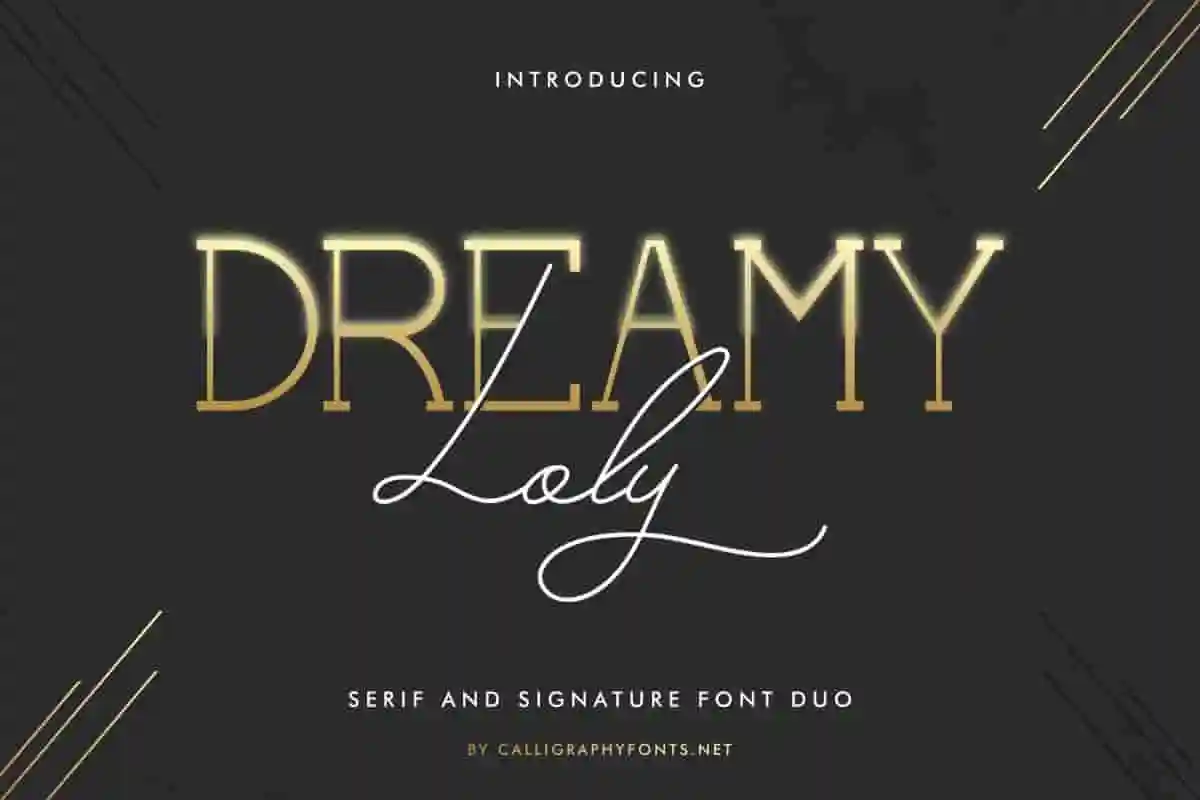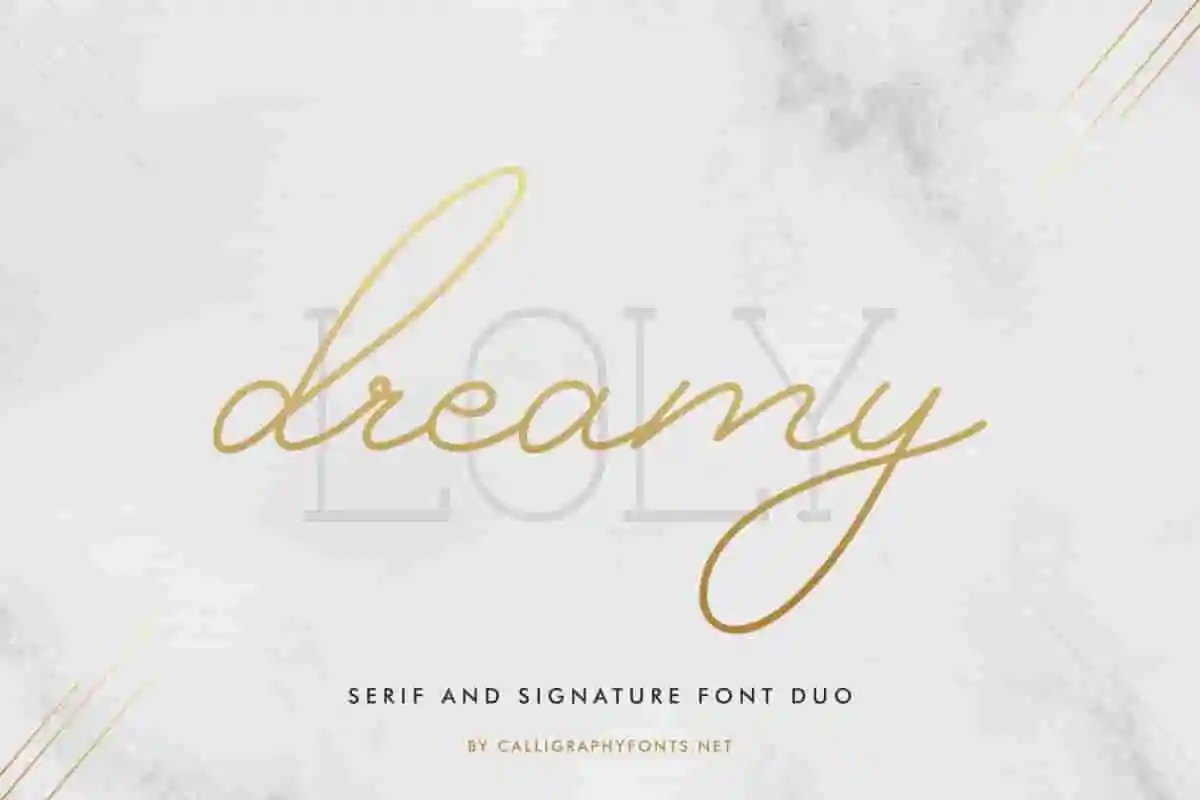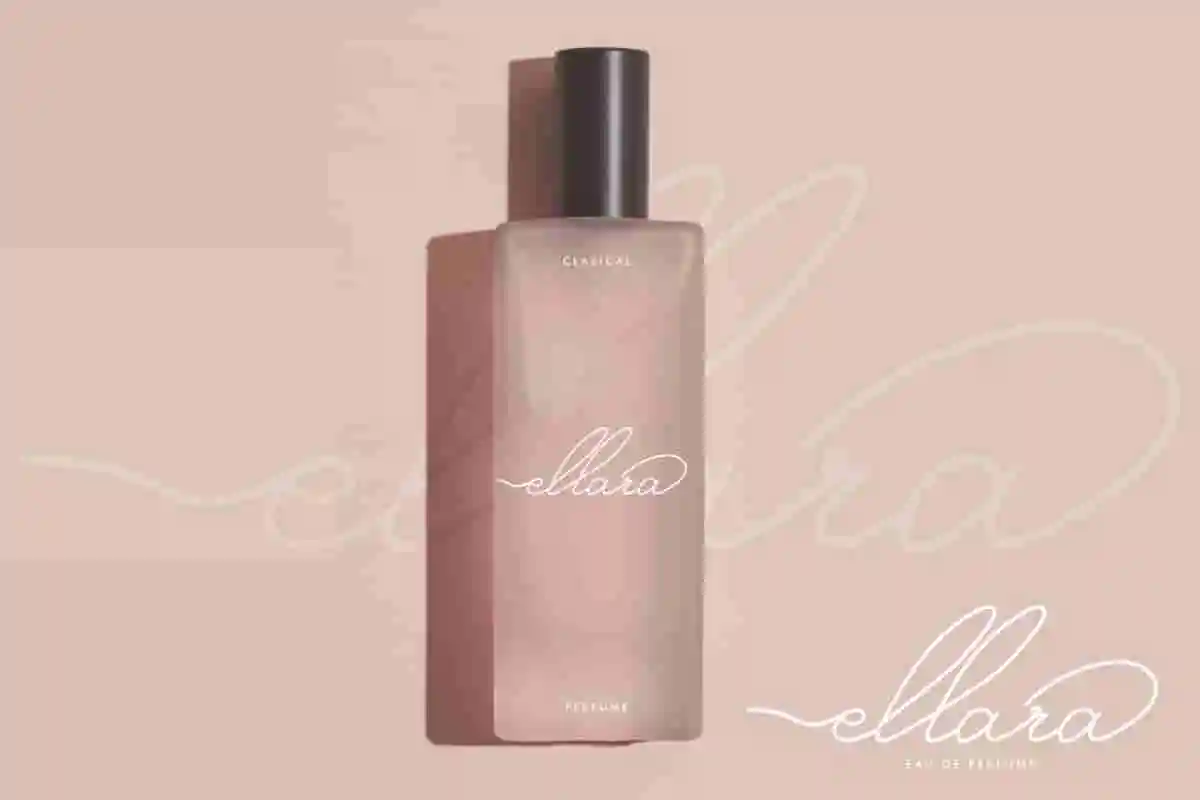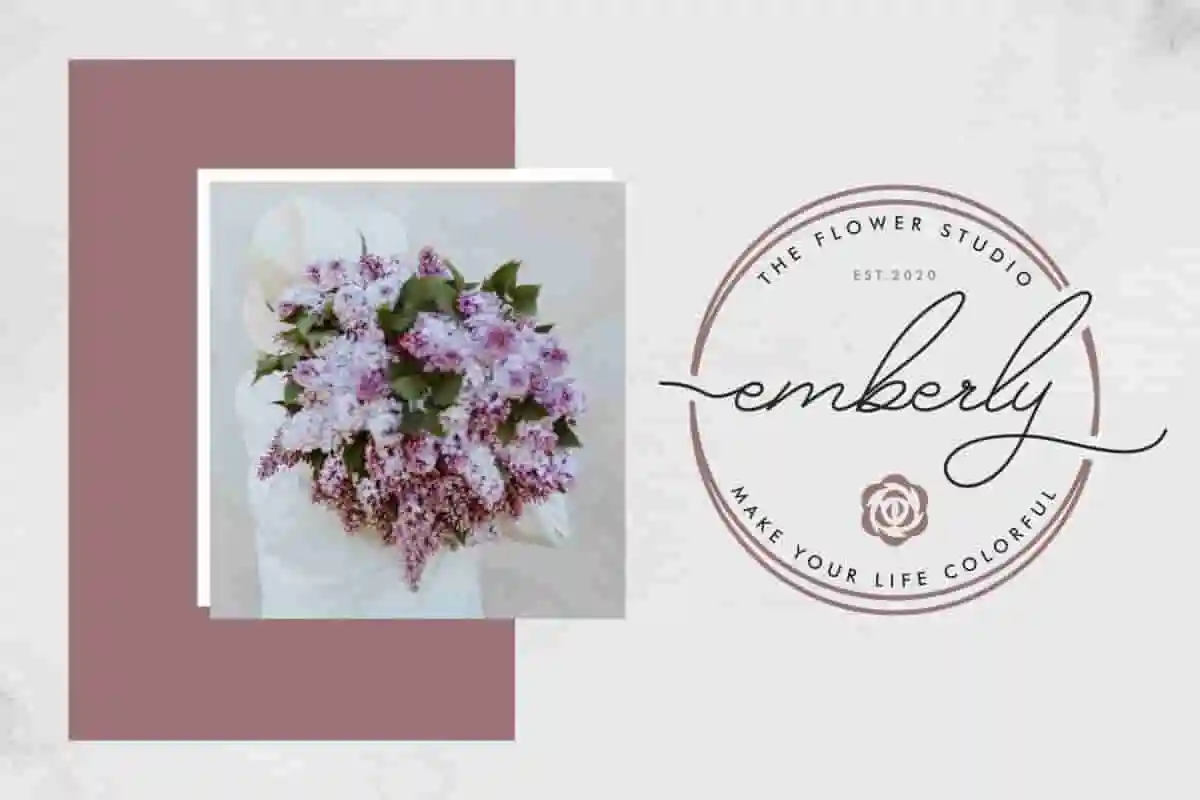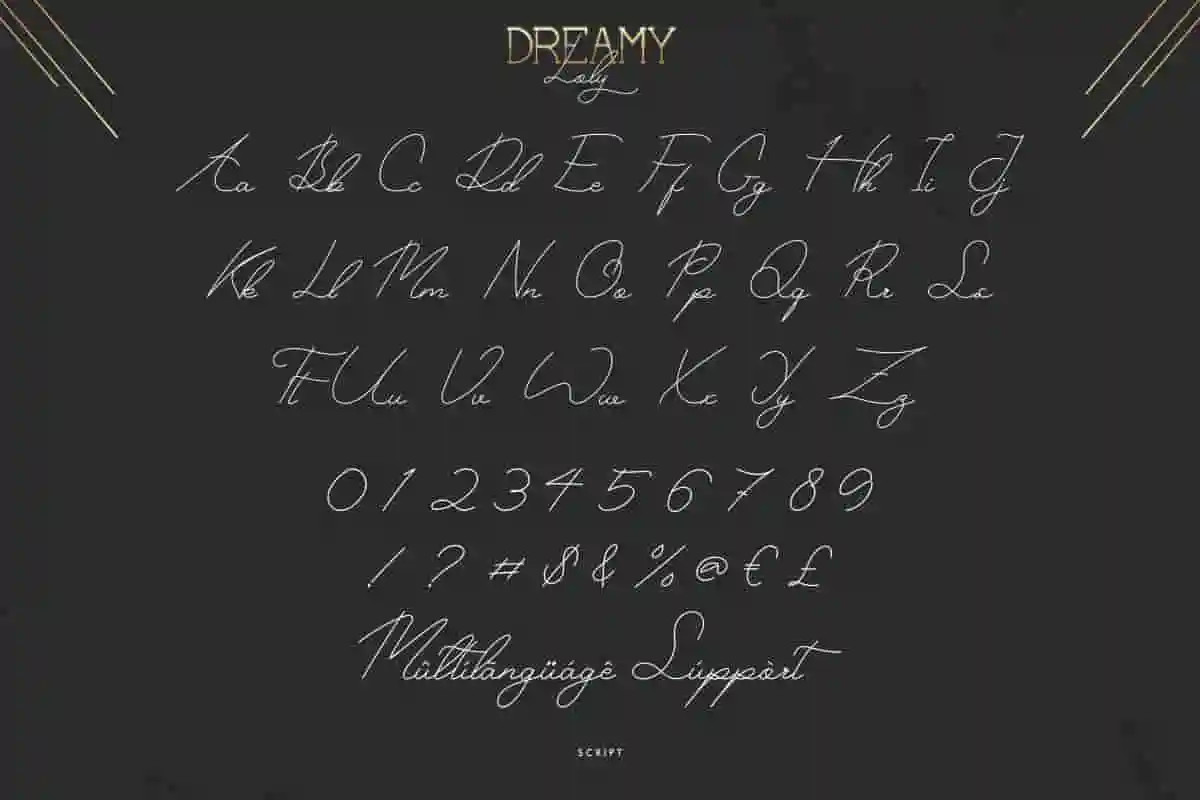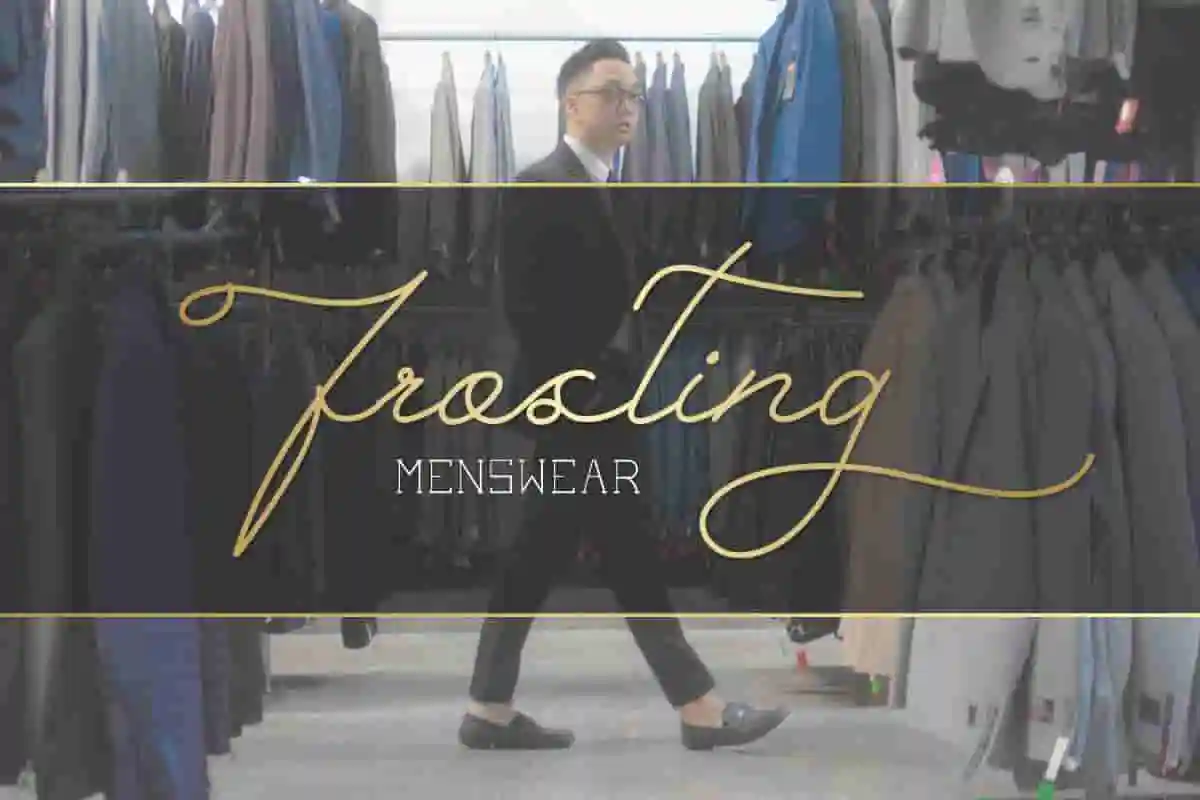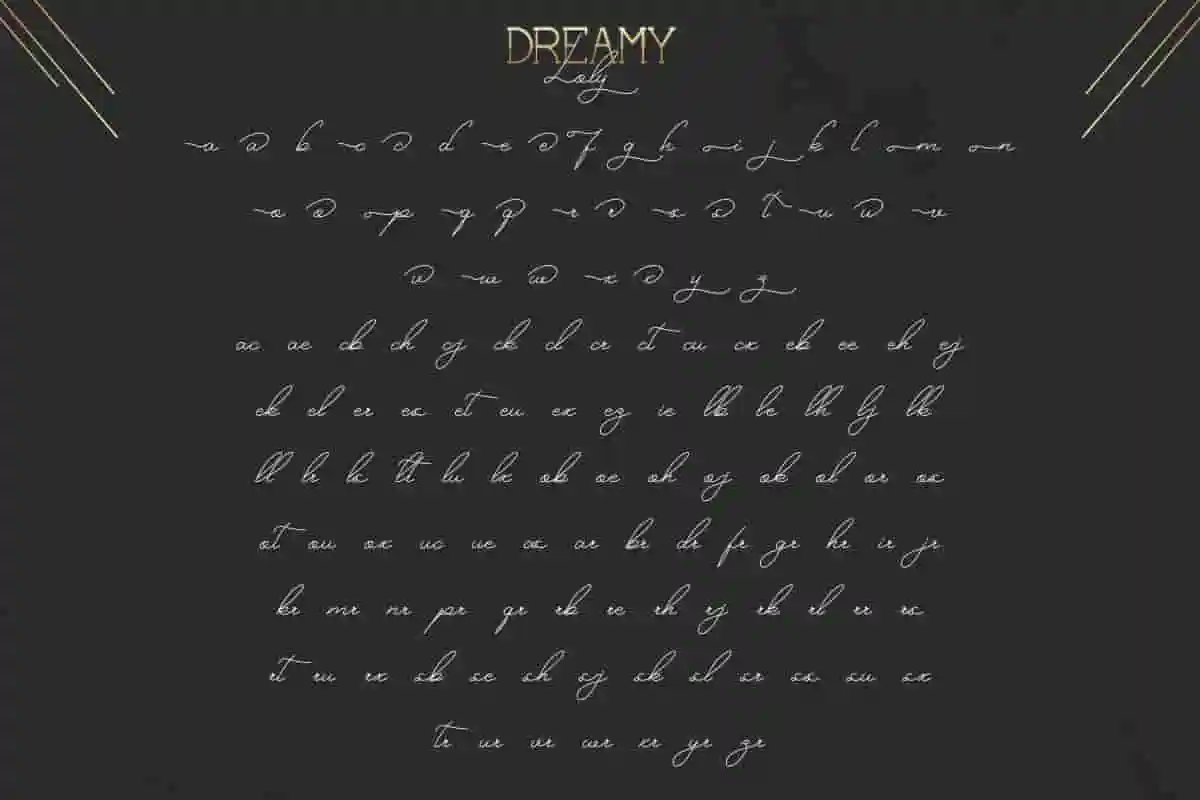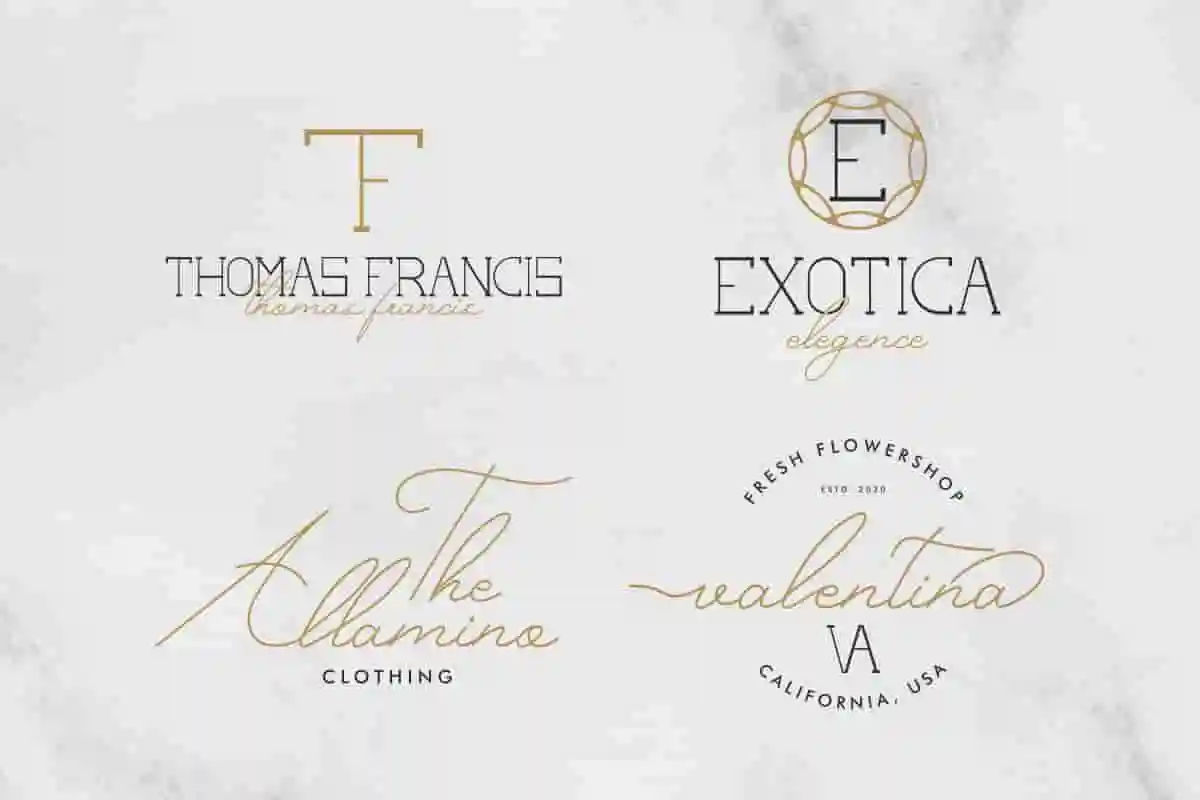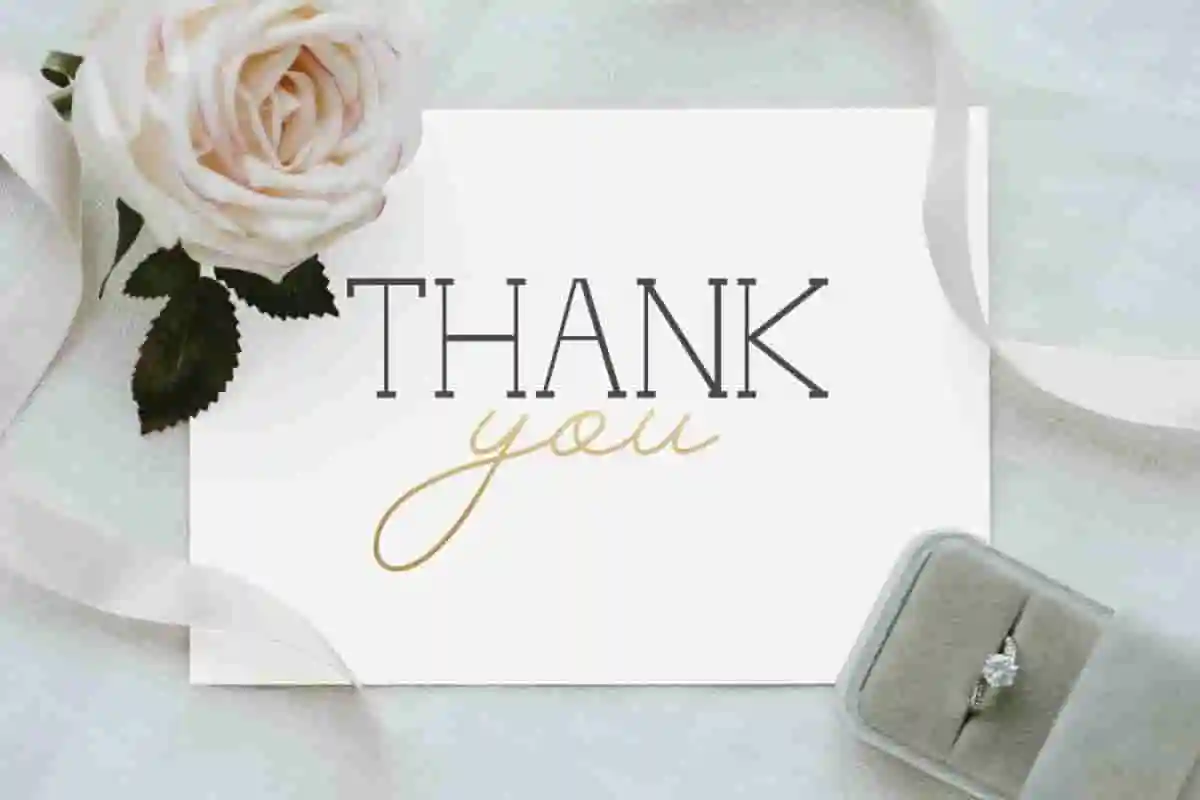
Dreamy Loly Font
Dreamy loly is a Font Family with TWO different font styles : Serif display and Signature Script . The style of this font are minimalist, signature, modern, elegant, luxury, glamour, classic and simple lettering.